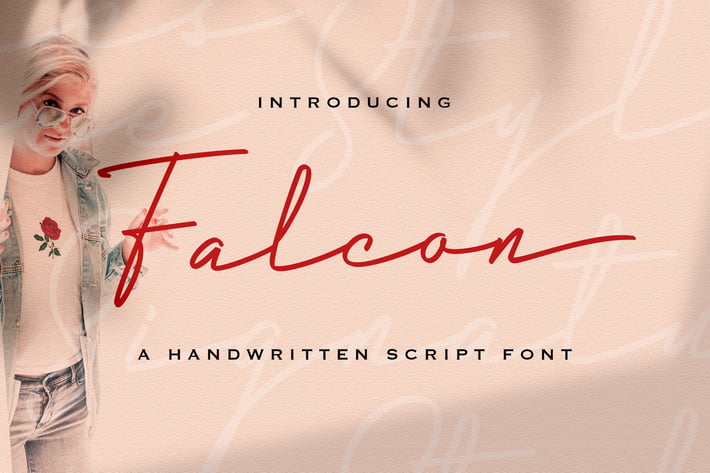
Falcon - Handwritten Font
Introducing Falcon - Handwritten Script Font
Falcon is a flowing handwritten font, described by an elegant touch, perfect for your favorite projects. Fall in love with its incredibly distinct and timeless style and use it to create spectacular designs!
- Stylistic Alternates
Falcon is a flowing handwritten font, described by an elegant touch, perfect for your favorite projects. Fall in love with its incredibly distinct and timeless style and use it to create spectacular designs!
- Stylistic Alternates